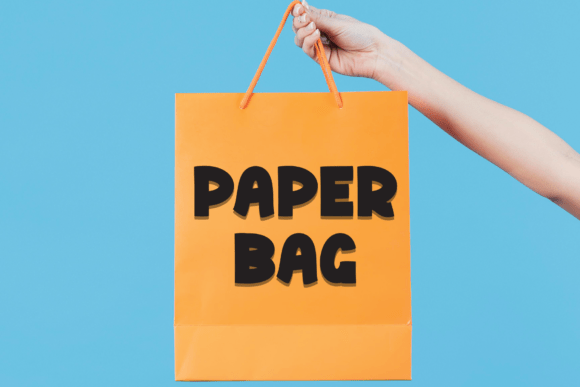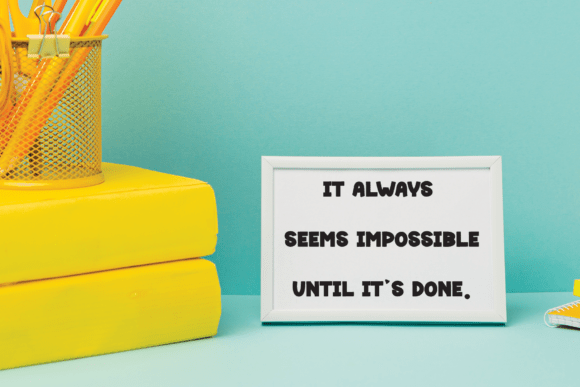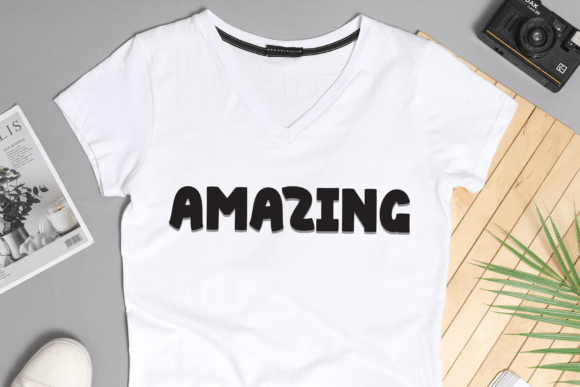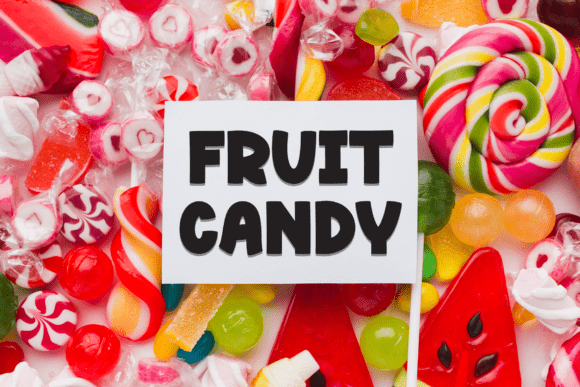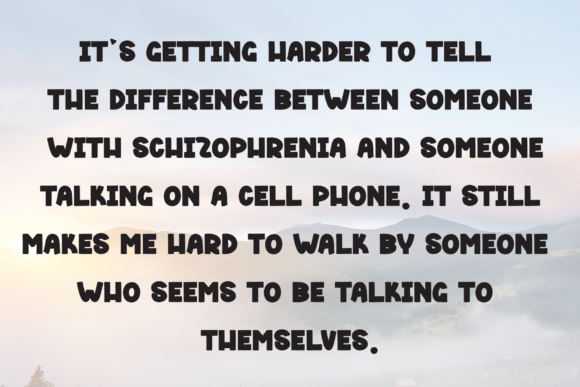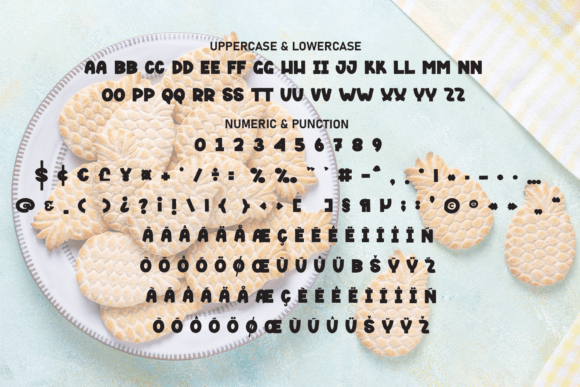
Cookies Summer Font: The Perfect Addition to Your Design Projects
Are you looking for a font that exudes warmth, clarity, and a touch of casual elegance? Look no further than Cookies Summer Font. Designed to bring a sense of approachability and charm to your projects, this display font is perfect for designers and crafters seeking to make a lasting impression. In this article, we’ll dive into the features and benefits of Cookies Summer Font, and explore how it can elevate your branding, headlines, and everyday designs.
A Casual and Neat Display Font
Cookies Summer Font is a carefully crafted display font that boasts a clean structure and a neat, organized aesthetic. Its casual style makes it an excellent choice for designers who want to add a touch of warmth and personality to their projects. Whether you’re working on a branding campaign, a website, or a social media graphic, this font is sure to make your message feel genuine and inviting.
Balanced Letterforms for Readability and Charm
One of the standout features of Cookies Summer Font is its balanced letterforms. Each letter is meticulously designed to offer exceptional readability, making it perfect for headlines, titles, and short paragraphs. The font’s charm lies in its ability to convey a sense of approachability and friendliness, making it an excellent choice for designers who want to create a lasting connection with their audience.
Perfect for Branding, Headlines, and Everyday Designs
Cookies Summer Font is a versatile font that can be used in a variety of design projects. Its clean and neat aesthetic makes it perfect for branding, where a clear and concise message is essential. The font’s casual style also makes it suitable for headlines, where a touch of personality and flair is desired. Additionally, its readability and charm make it an excellent choice for everyday designs, such as social media graphics, blog posts, and more.
Benefits of Using Cookies Summer Font
- Warmth and Clarity: Cookies Summer Font is designed to bring warmth and clarity to your projects, making it perfect for designers who want to create a lasting impression.
- Readability and Charm: The font’s balanced letterforms offer exceptional readability and charm, making it perfect for headlines, titles, and short paragraphs.
- Versatility: Cookies Summer Font can be used in a variety of design projects, from branding and headlines to everyday designs.
Tips and Tricks for Getting the Most Out of Cookies Summer Font
- Use it as a Headline Font: Cookies Summer Font is perfect for headlines, where a touch of personality and flair is desired.
- Pair it with Other Fonts: The font pairs well with other fonts, making it easy to create a unique and visually appealing design.
- Experiment with Colors: Cookies Summer Font looks great in a variety of colors, so don’t be afraid to experiment and find the perfect hue for your design.
Cookies Summer Font is a casual and neat display font that is perfect for designers and crafters seeking to add a touch of warmth and clarity to their projects. Its balanced letterforms offer exceptional readability and charm, making it perfect for branding, headlines, and everyday designs. With its ease of use and versatility, Cookies Summer Font is a great addition to any design toolkit.